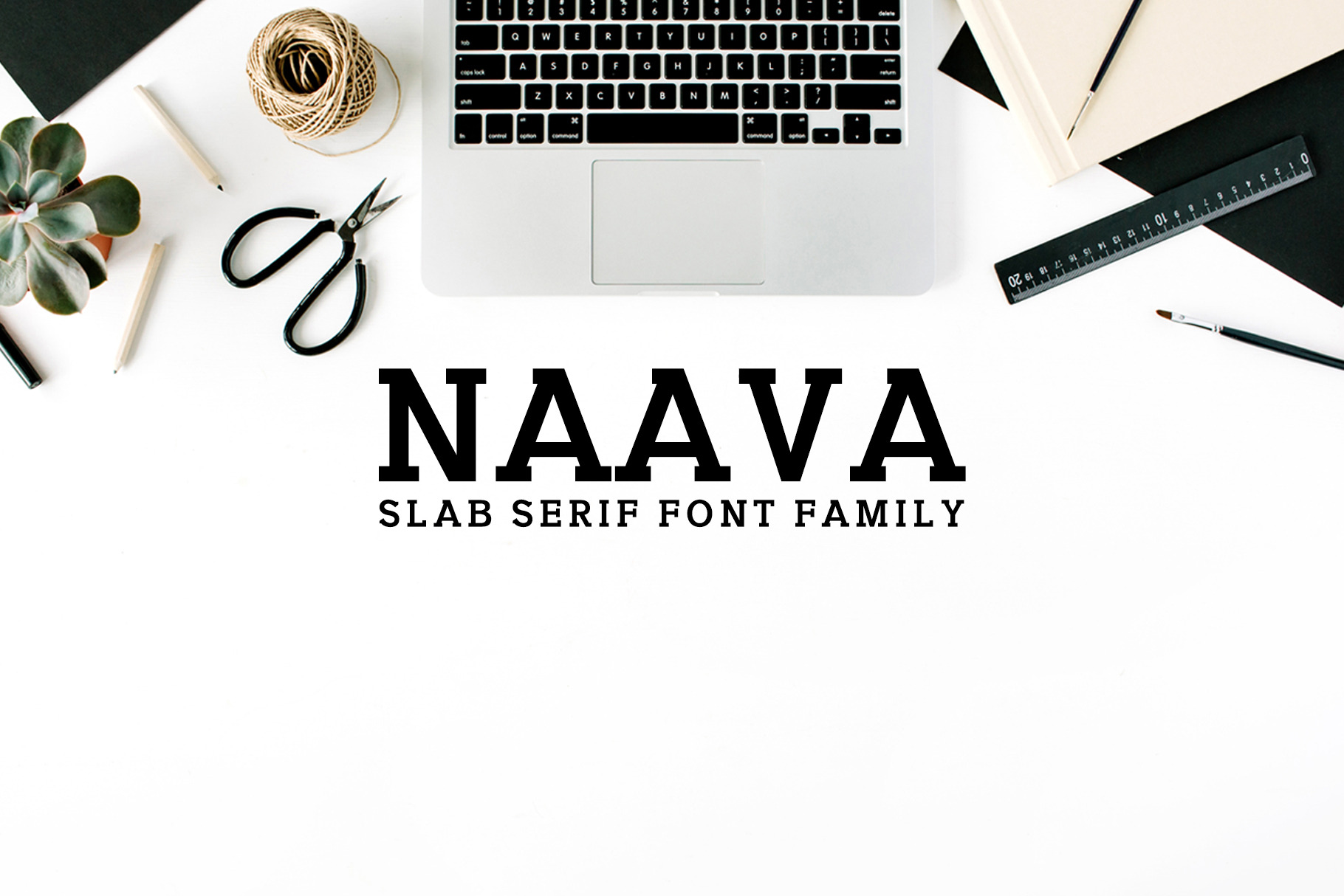
Naava A Slab Serif Font Family
Naava is a creative, versatile slab serif font family comes in a pack of three unique weights. Naava includes uppercase, lowercase, punctuation and every standard special character found on a keyboard. It's well-suited for editorial projects, logotypes, posters, clean designs, logos, headlines, banners and templates etc.
- Regular, Medium and Bold Weight
Naava Font Features:
- Uppercase Multilingual Letters
- Lowercase Multilingual Letters
- Non English Characters ( Latin Supplement + Latin Extended A )